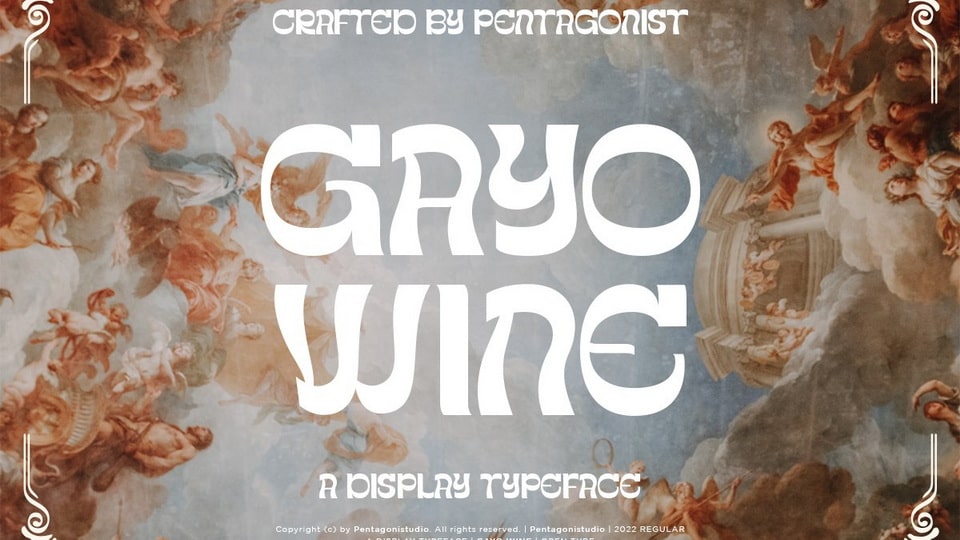
Download Gayo Wine font, a fancy display typeface inspired by vintage style mixed with modern typography. Gayo Wine brings a unique visual voice to any design, from modern logos to Instagram quotes, posters, editorial layouts, branding, packaging and so on.
Designer: Pentagonistudio